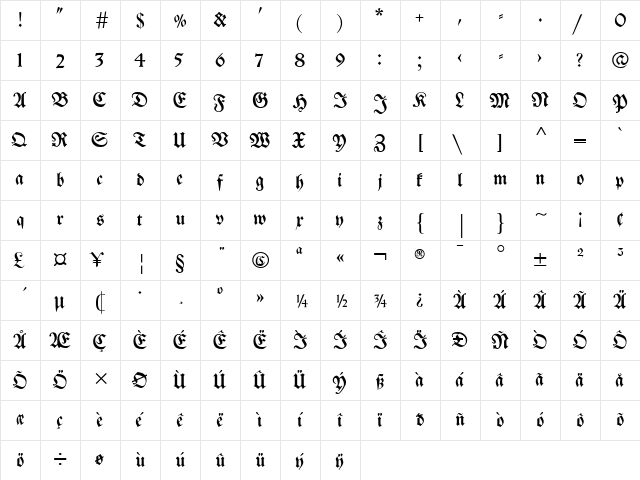
Breitkopf FrakturUNZ1L Regular
Design Context for Breitkopf FrakturUNZ1L Typeface
Breitkopf FrakturUNZ1L draws on the rich tradition of blackletter calligraphy, with dense, angular strokes that evoke medieval manuscripts and old-world craftsmanship.
Well-suited to band logos, craft beer branding, tattoo lettering, and heritage-themed identities.
Font Pairing: Pair with a clean neutral sans-serif for body copy to let Breitkopf FrakturUNZ1L's character lead without overwhelming the composition.
Pro Tip: Use Breitkopf FrakturUNZ1L sparingly at large sizes. Even a single word set in blackletter can define the visual register of an entire design.